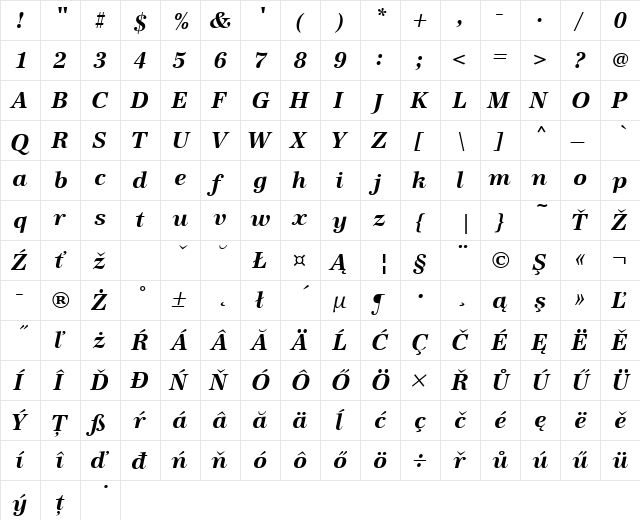
URWAntiquaTEE Bold Italic
Design Context for URWAntiquaTEE Typeface
URWAntiquaTEE is a composed and adaptable typeface that performs quietly and consistently across a wide range of design contexts. The slanted form adds forward momentum and visual energy. Its bold stroke weight gives it real presence on the page.
Pro Tip: Use URWAntiquaTEE for emphasis, pull quotes, and subheadings where its slanted energy can add rhythm to the layout.